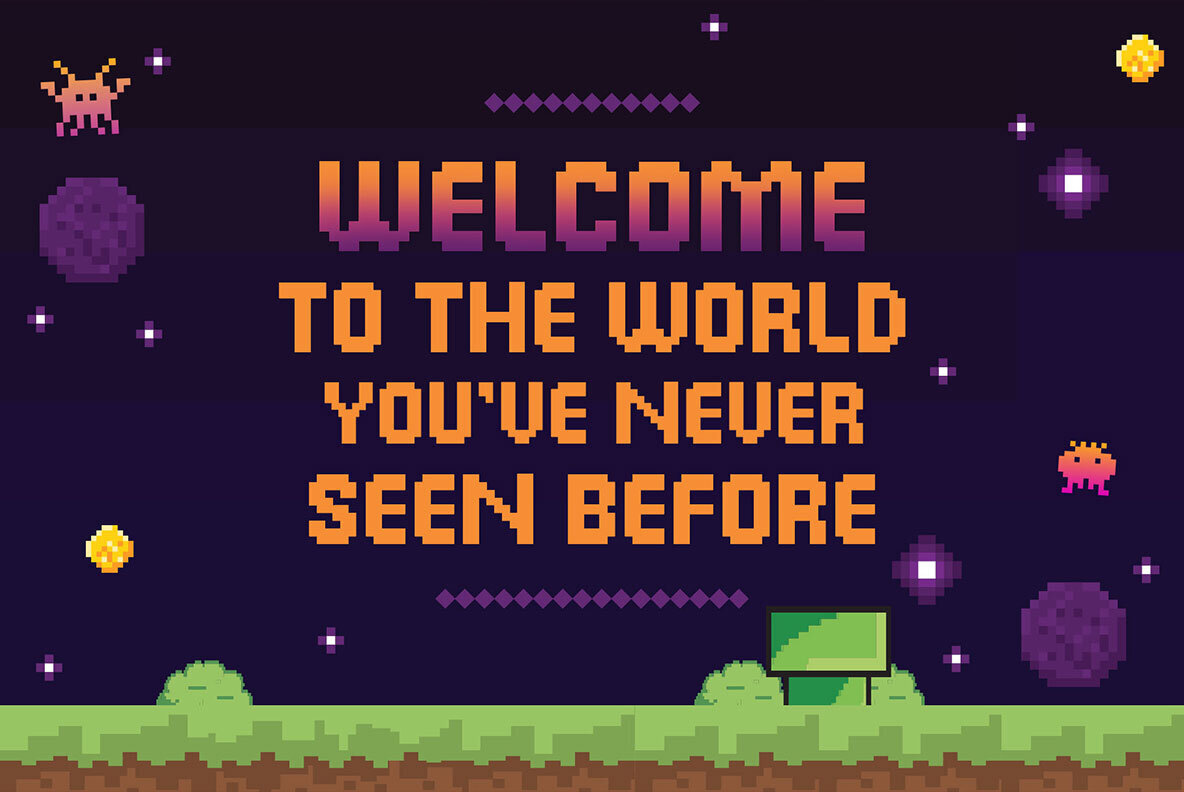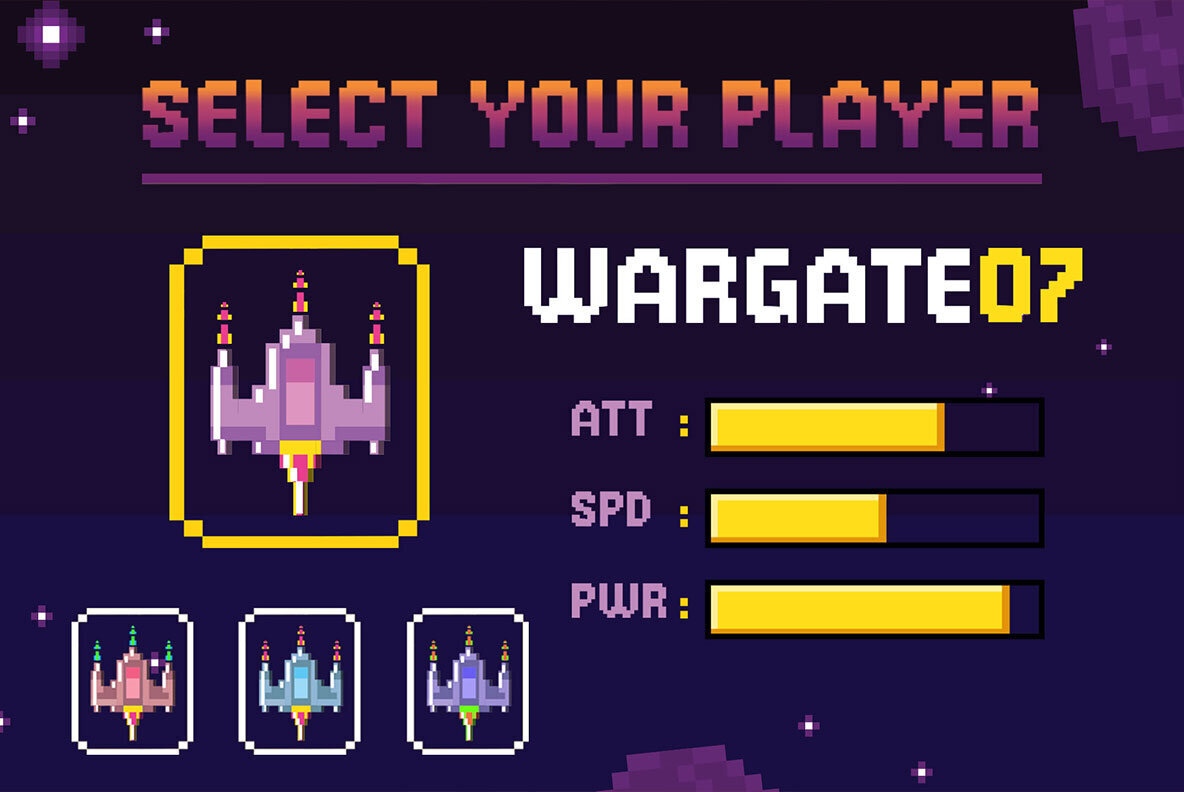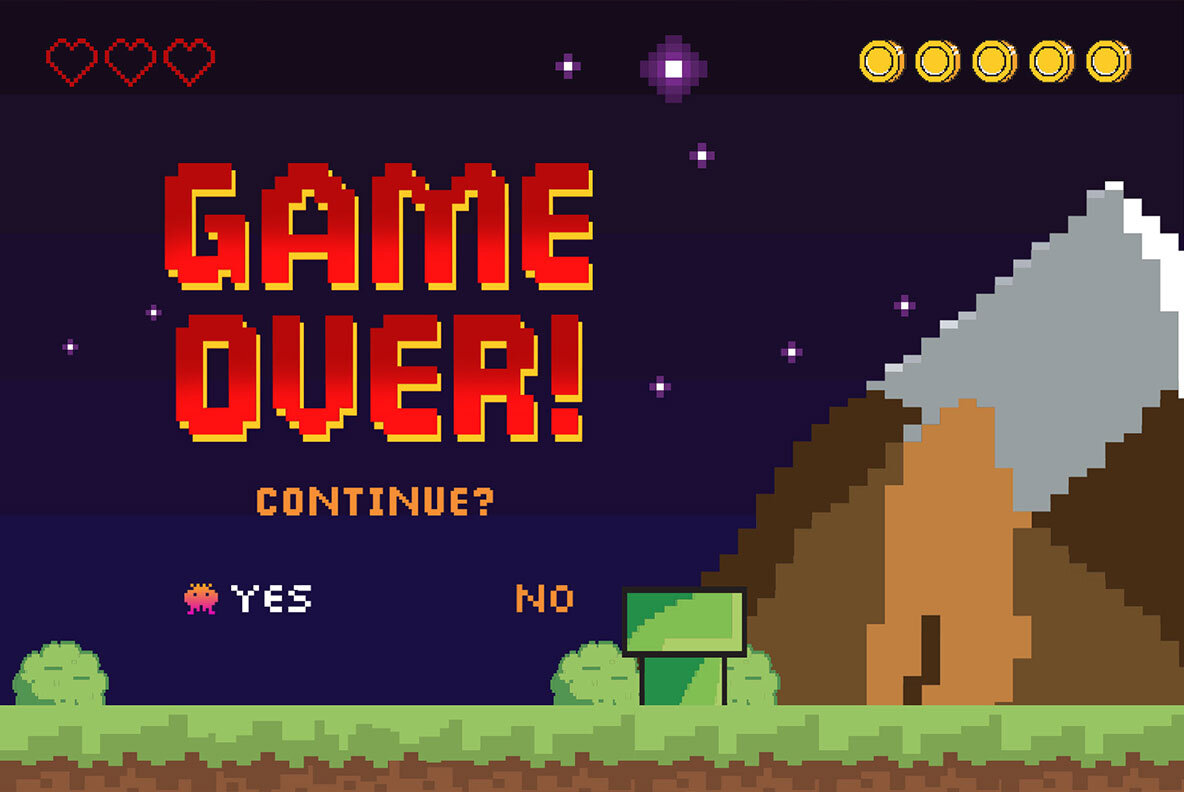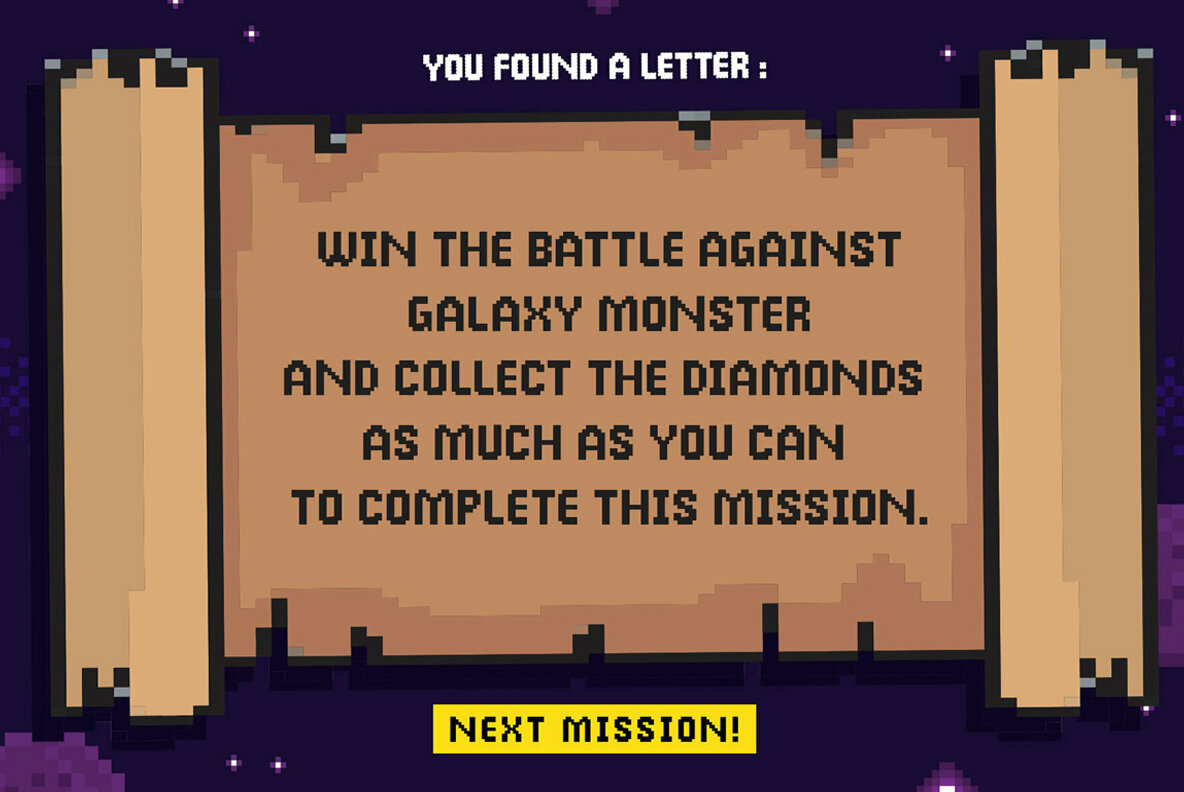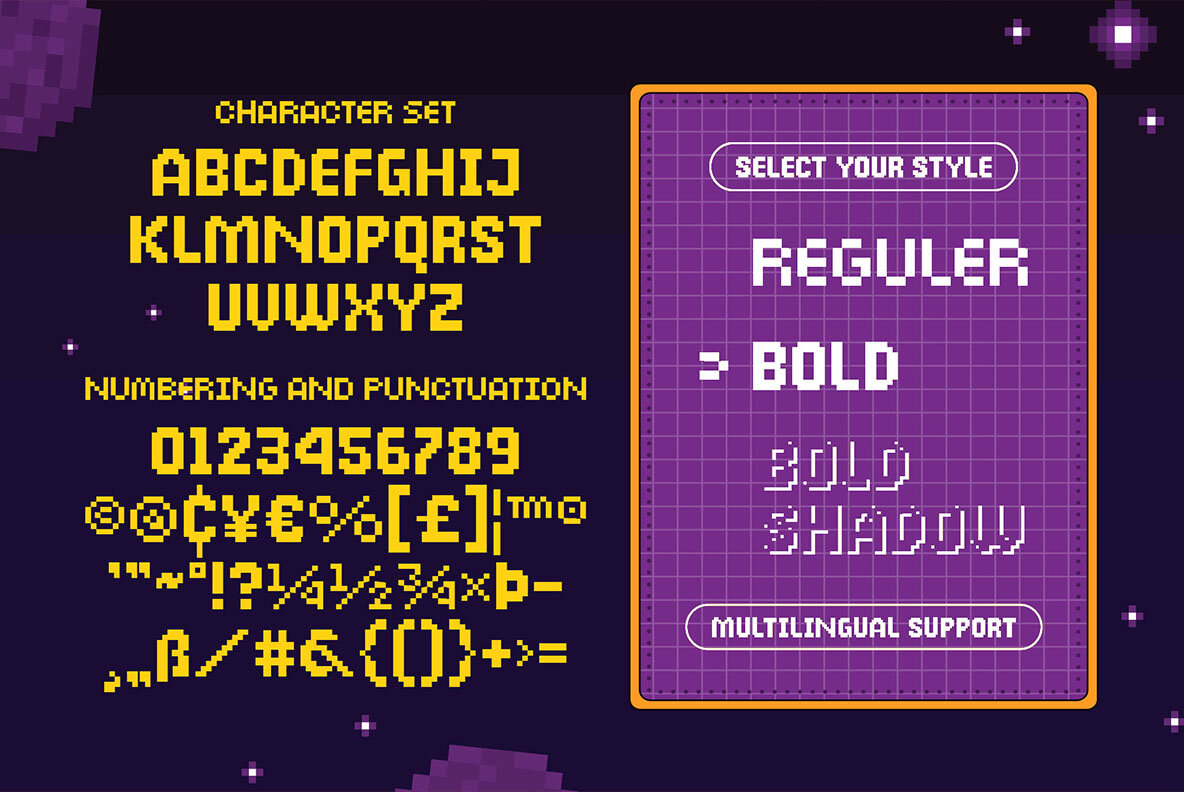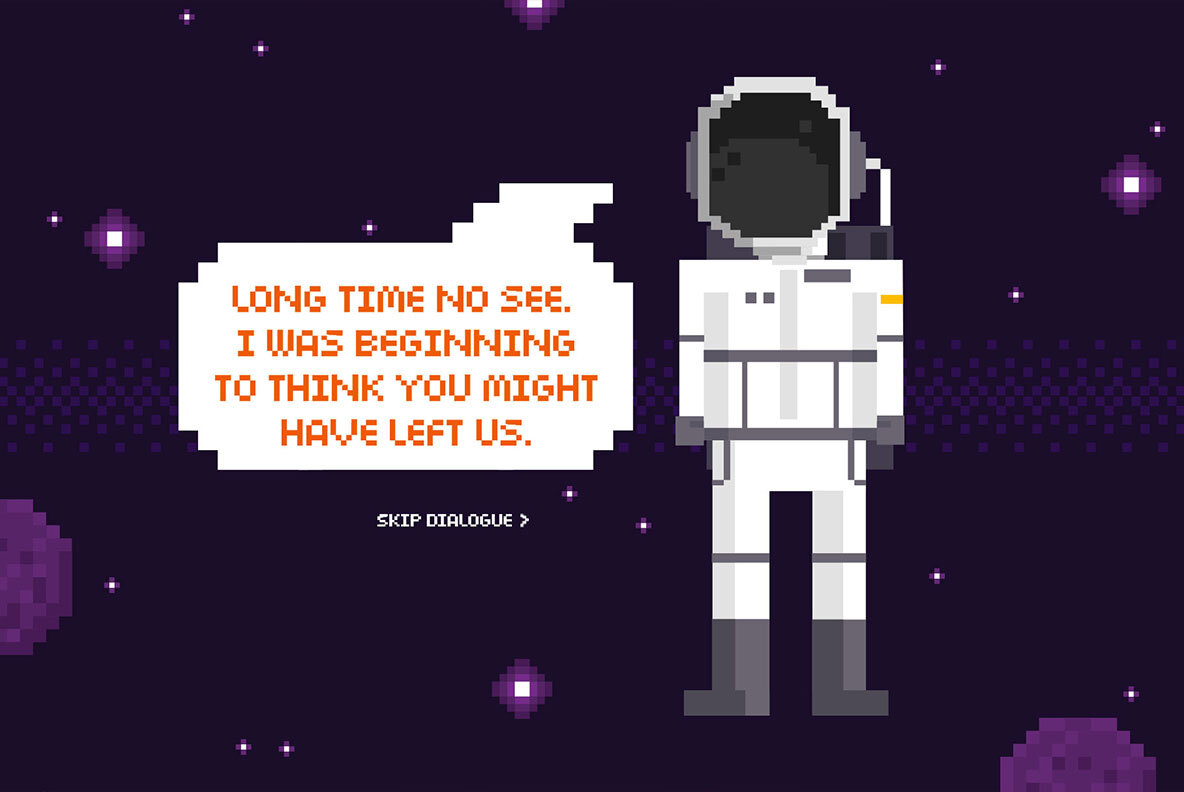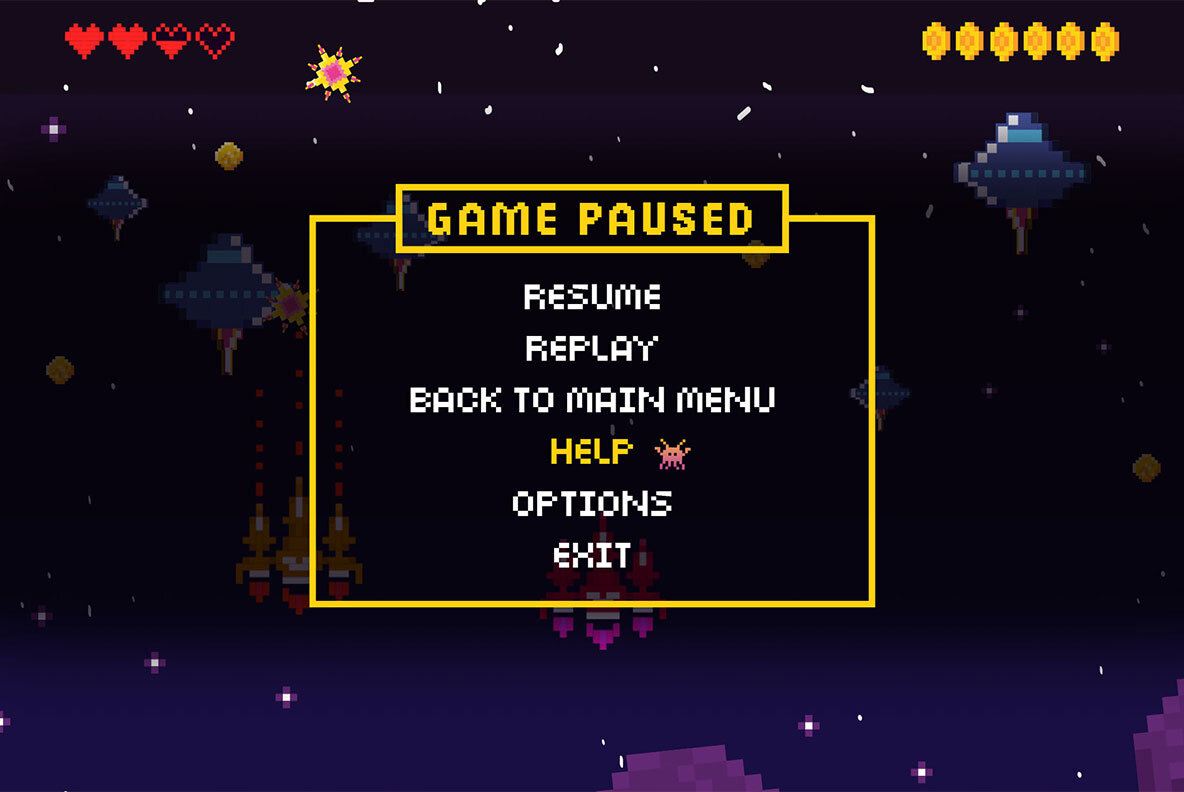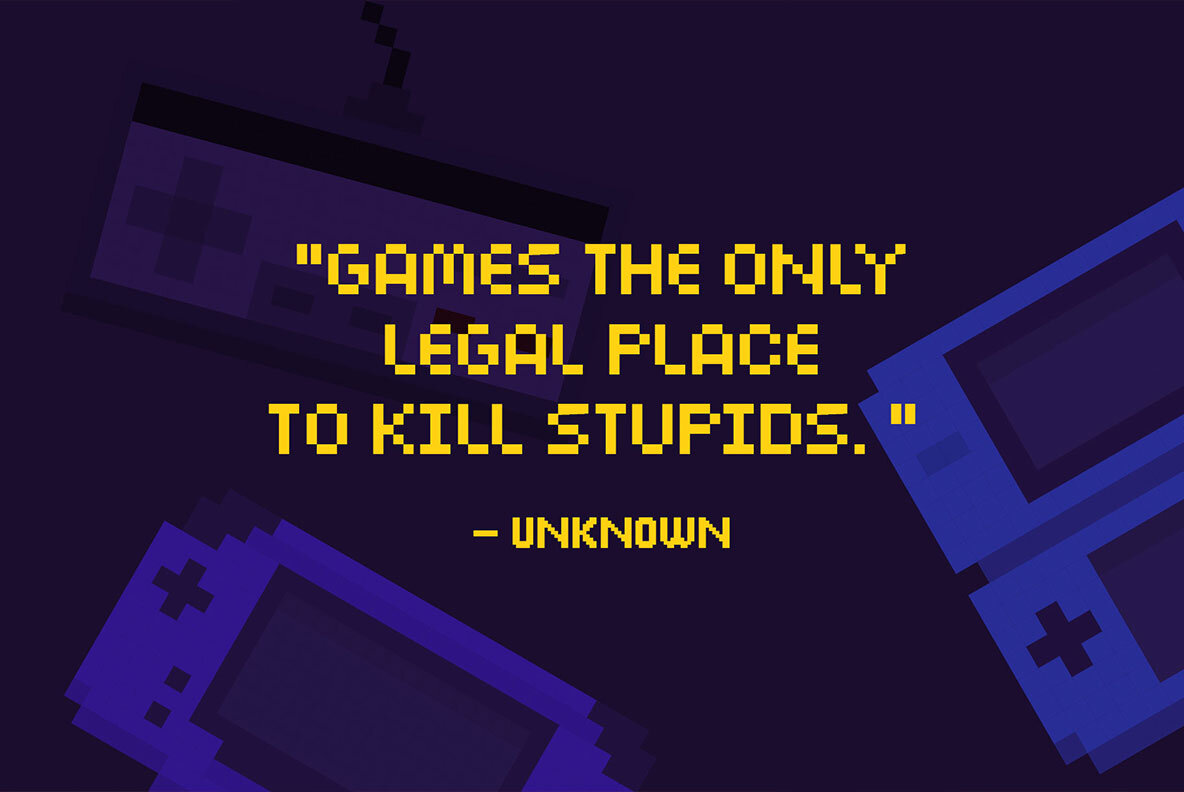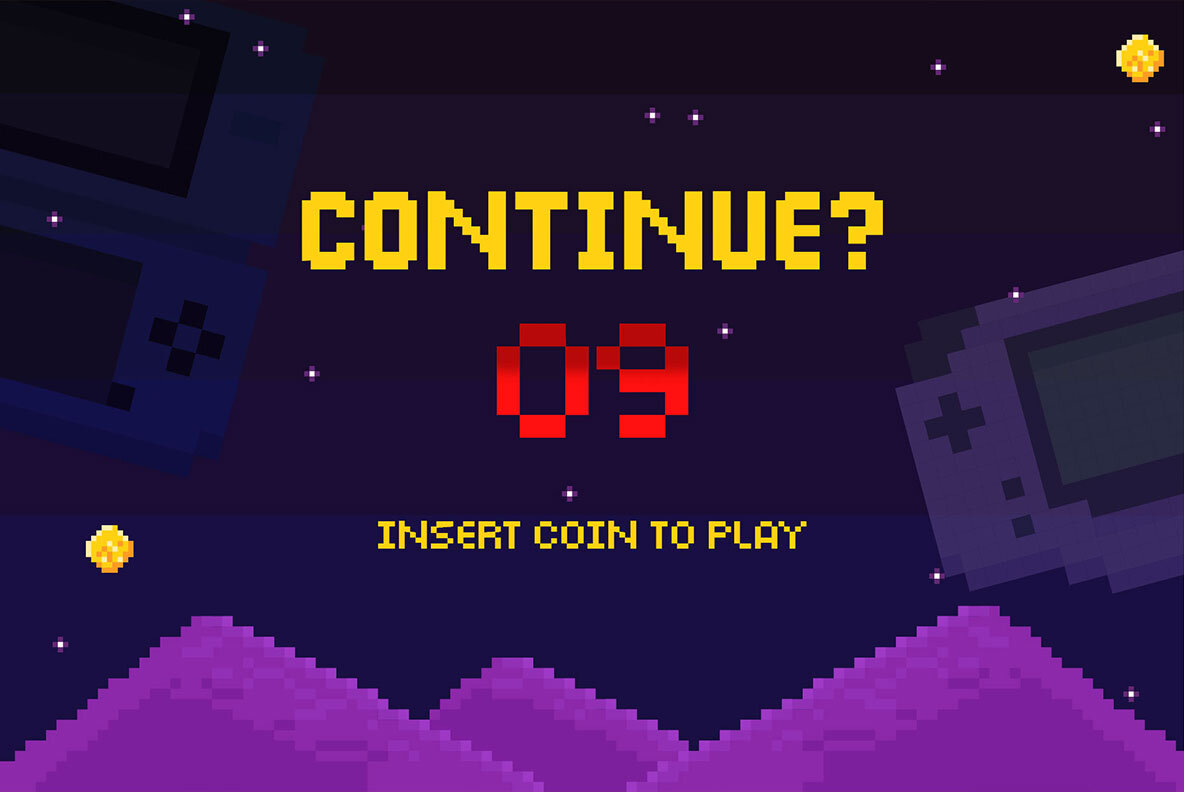
Broken Console Font
Step back into the nostalgic realm of old-school gaming with Broken Console, a geometric pixel font that evokes the pixel art of vintage game consoles. Offered in three distinct styles—Regular, Bold, and Shadow—this all-caps typeface offers a versatile fit for modern graphic design. With its unique letterforms, Broken Console effortlessly aligns with themes such as Techno, Digital, Retro, and Cyberpunk. Ideal for projects that echo the vibrancy of gaming and sporting aesthetics, it adds a distinctive touch to any creative venture.Broken Console: A Geometric Pixel Font for Retro Enthusiasts